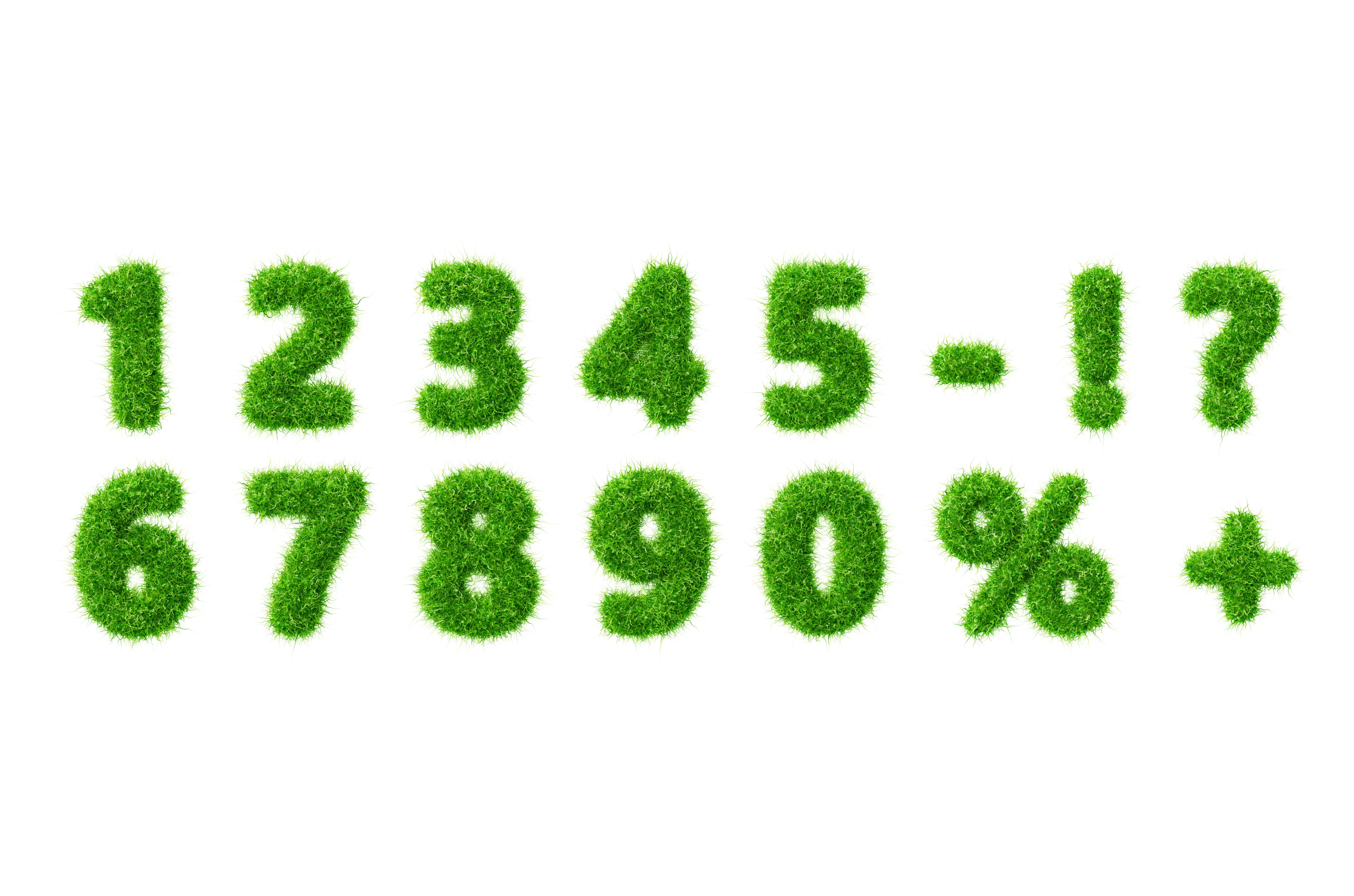
3d fur fluffy font, green grass
3d fur fluffy font, green grass texture numbers from 0 to 9. Natural eco organic balloons, percentage sign, question mark, exclamation, plus, minus symbol, sale discount, render set. 3D illustration